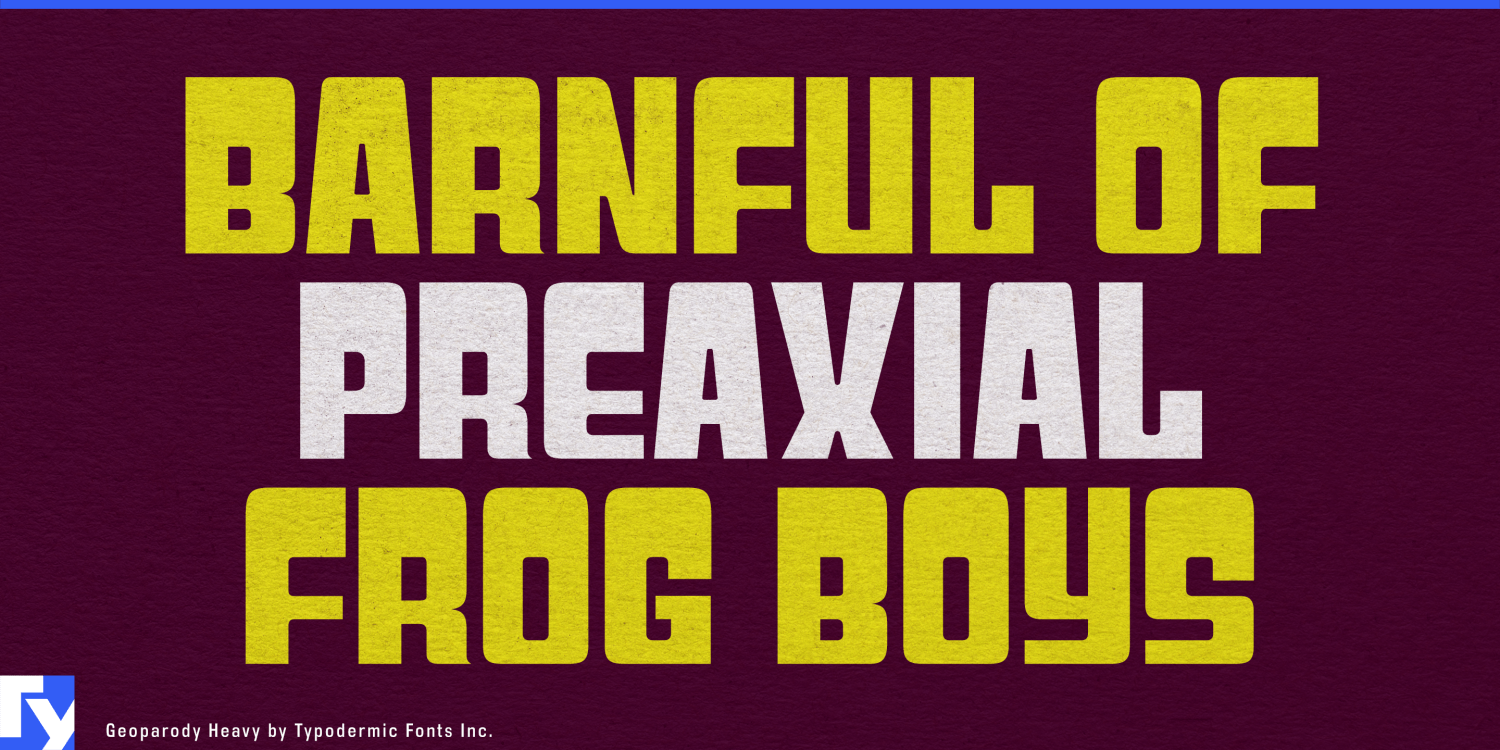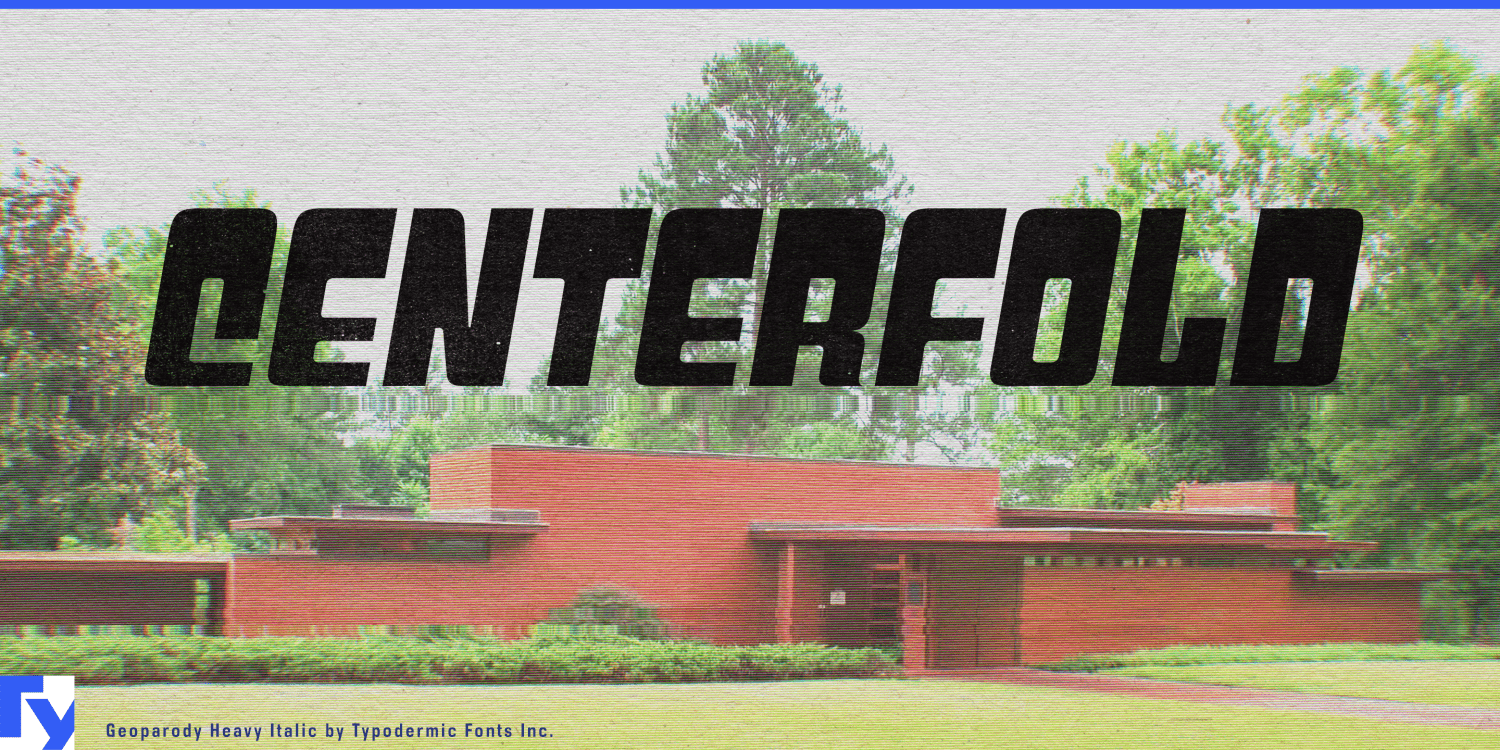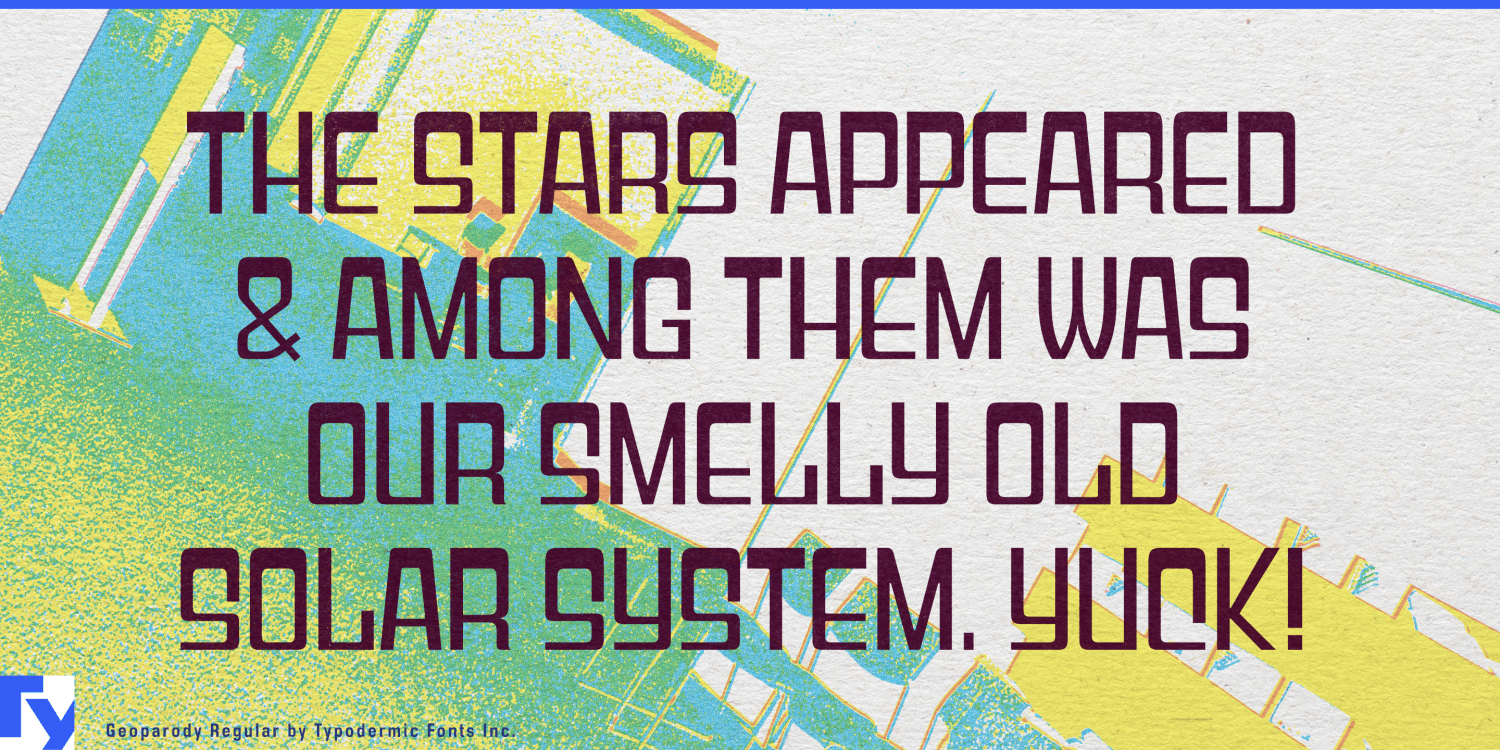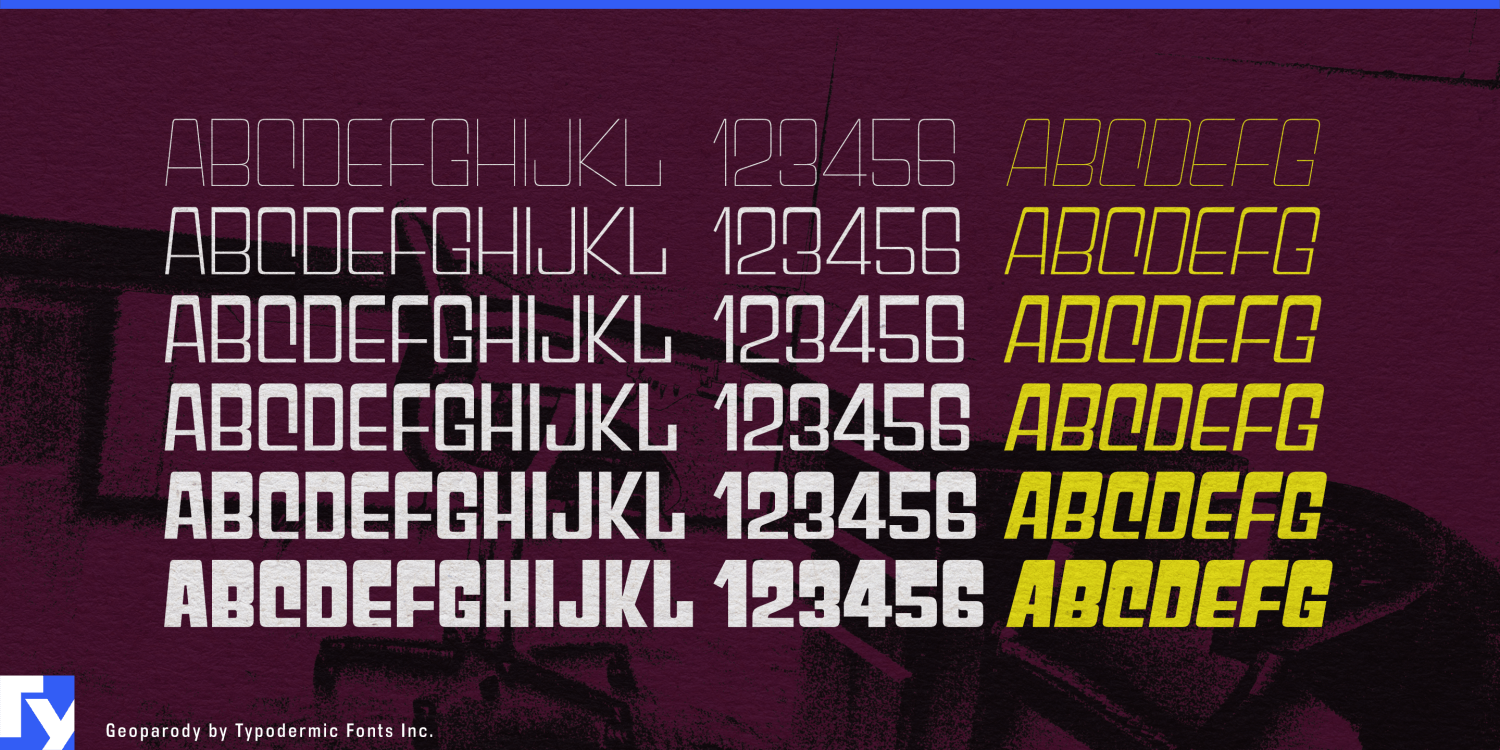
Groove into the typographic time warp with Geoparody, a font that doesn’t just nod to the 1960s—it throws a full-blown psychedelic party on your page. This isn’t your grandmother’s vintage typeface; it’s a bold, funky reimagining…